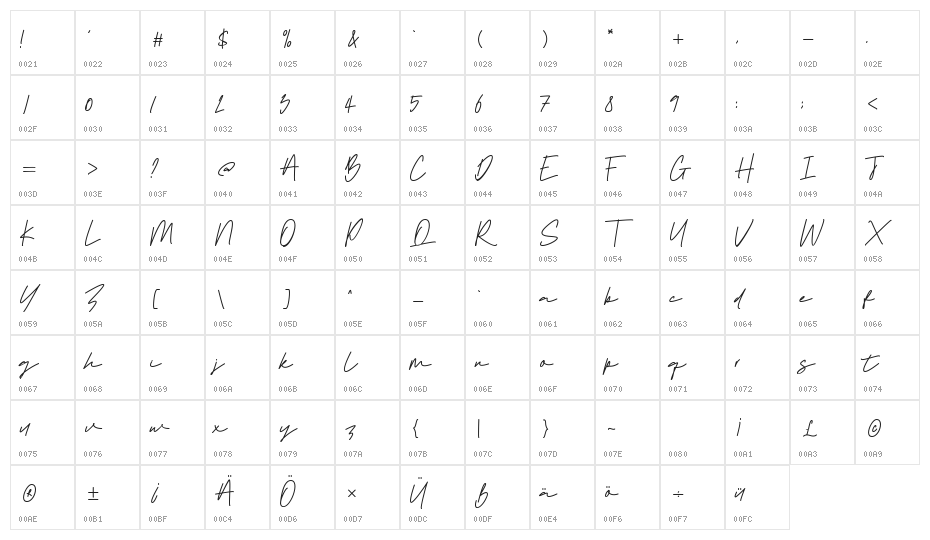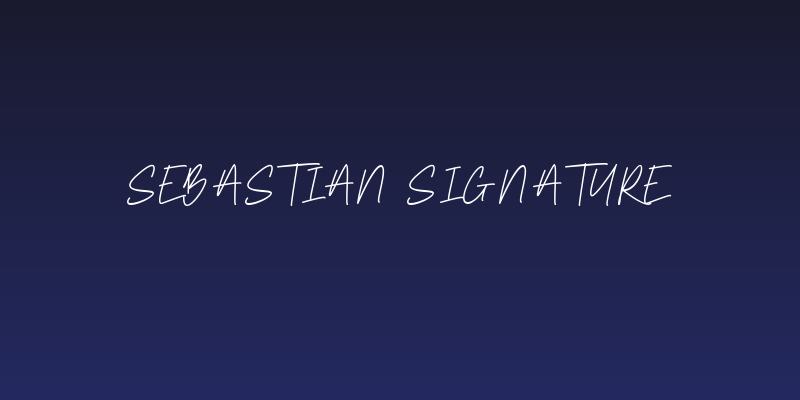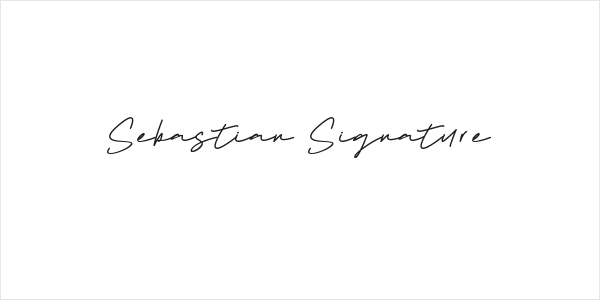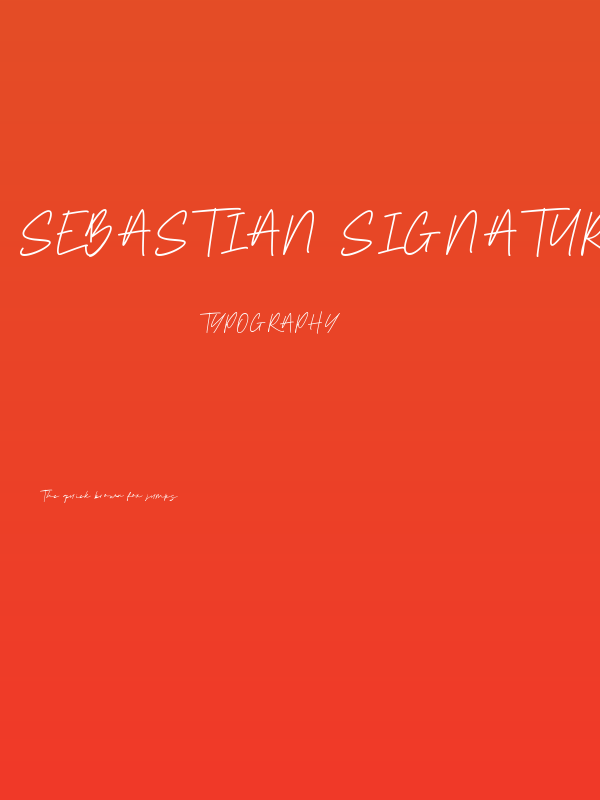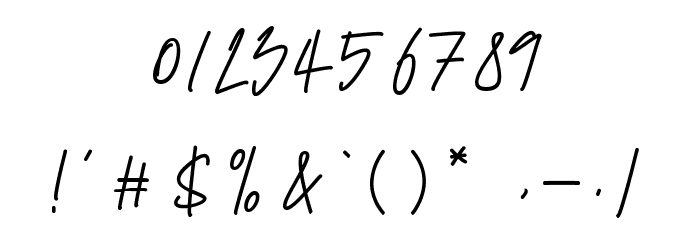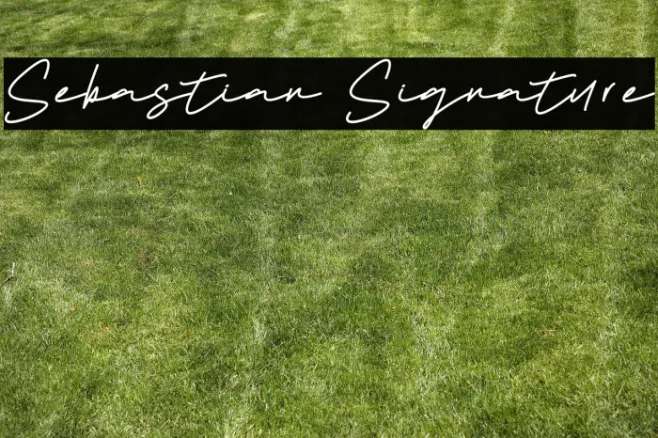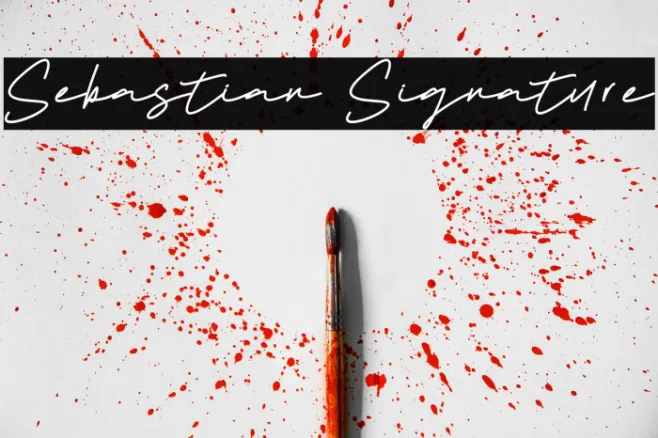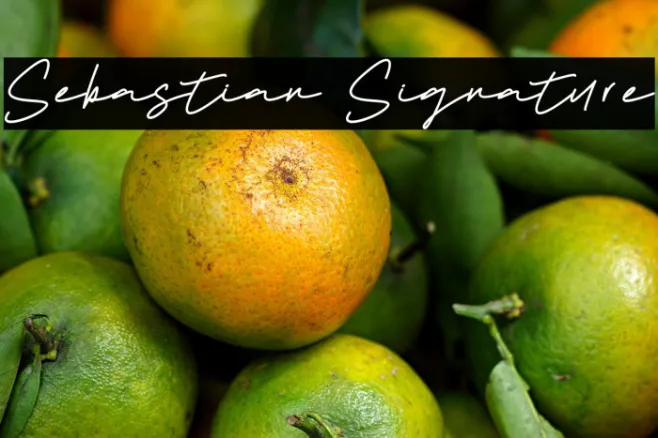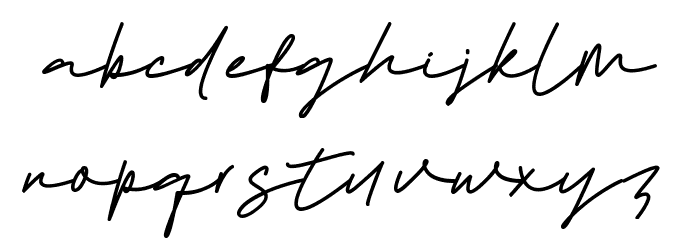
Sebastian Signature Font
Sebastian Signature Description
This font exudes a personal and expressive style, reminiscent of a handwritten signature. The characters are fluid and connected, with a natural flow that mimics cursive handwriting. The uppercase letters maintain a consistent height, while the lowercase letters vary slightly, adding to the organic feel. The numerals and special characters are crafted with the same attention to detail, ensuring a cohesive look across all elements. The strokes are smooth and slightly irregular, enhancing the handwritten aesthetic. This font is ideal for projects that require a personal touch, such as invitations, greeting cards, or branding materials that aim to convey authenticity and warmth.
| Use Case | Logos, Headlines, Personal projects |
| Proposed Projects | Ideal for invitations, greeting cards, personal branding, and any project needing a handwritten touch. |